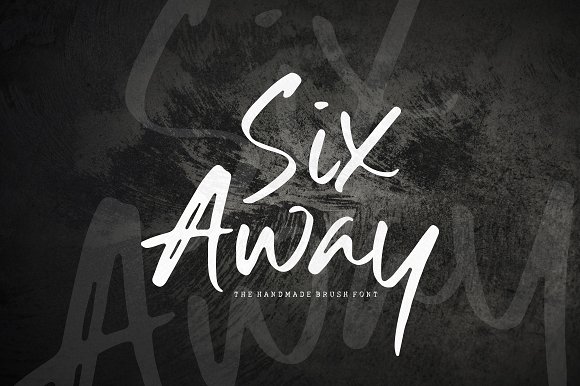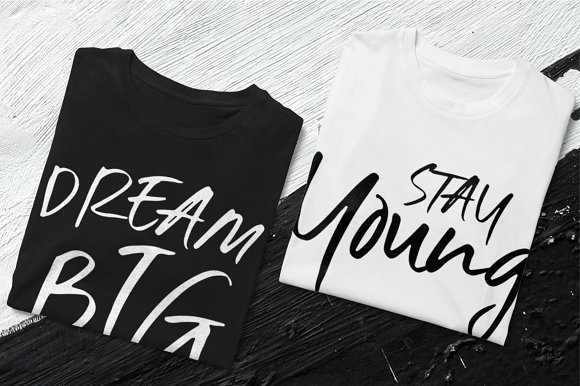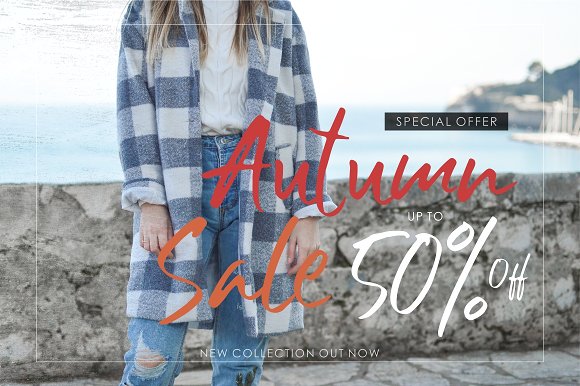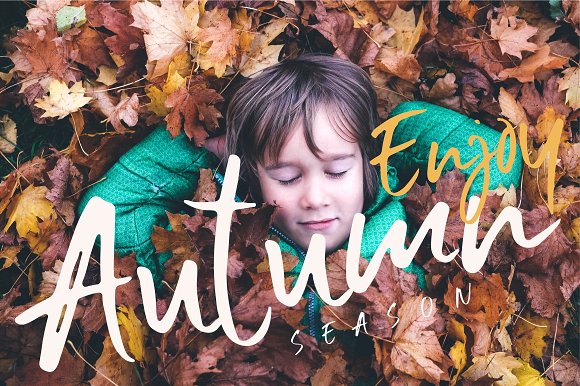
Six Away-The Handmade Brush Font
Hi Everyone, we will introduce Six Away-The Handmade Brush Font with a shape that is not monotonous. This font has its own style and can be assembled into a natural word. Six Away is made with a quick stroke of the brush pen, so that it looks original and can be used for all your project needs. Each glyph has its own uniqueness and when meeting with others will provide a dynamic and pleasing proximity. This font can be used at any time and any project. You can see in the presentation picture above, Six Away looks natural in some examples of design project.